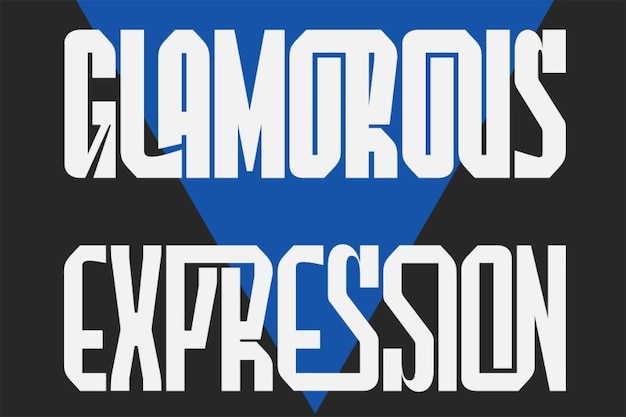
Glamorous Expression Font
"Glamorous Expression" is a bold, sophisticated font characterized by its small kerning and compact spacing. Its elongated letters and small eye details create a refined, elegant look that commands attention. Perfect for luxury branding or high-impact designs, this font blends modern glamour with timeless allure, making every message feel exclusive and stylish.